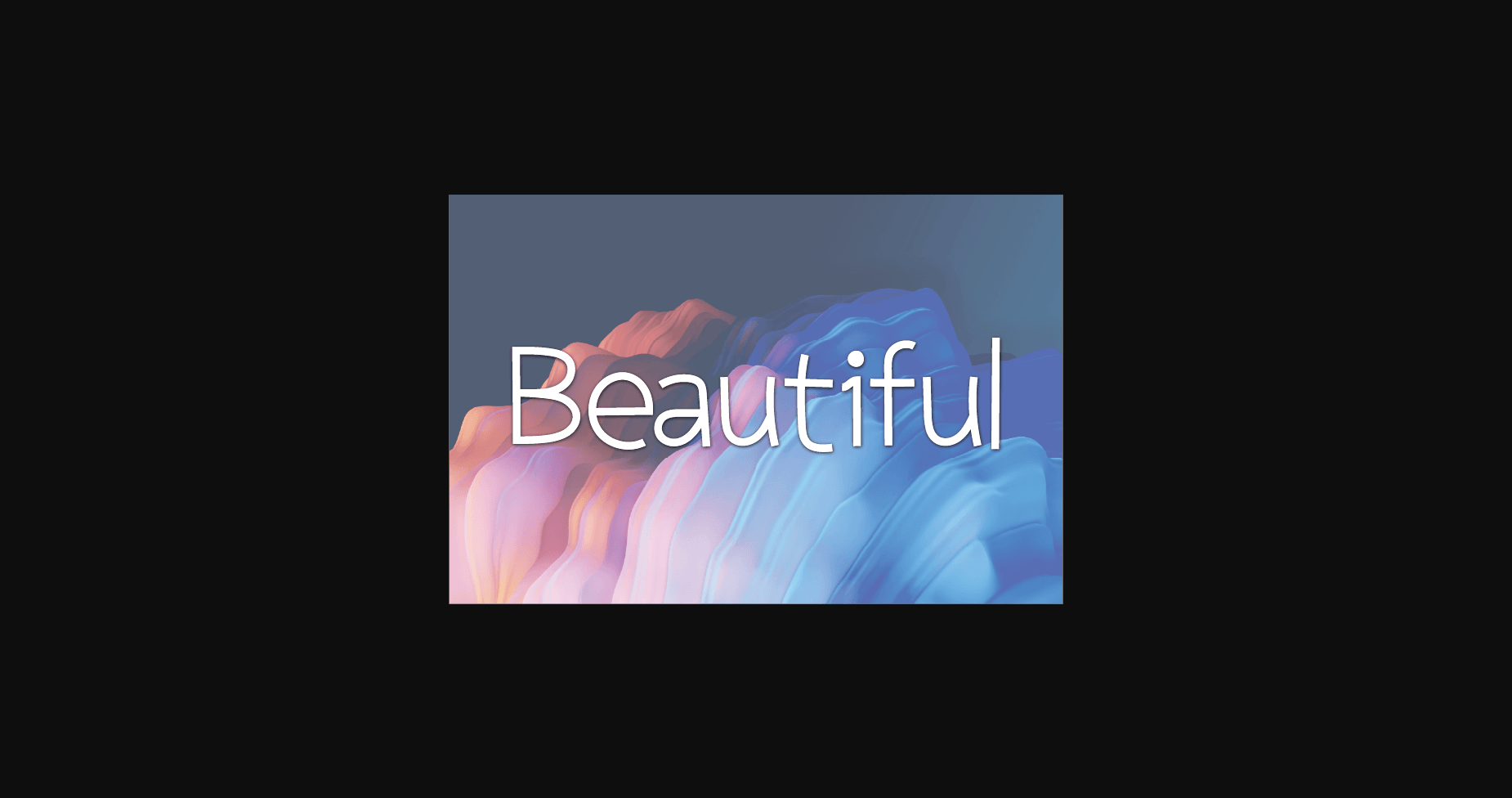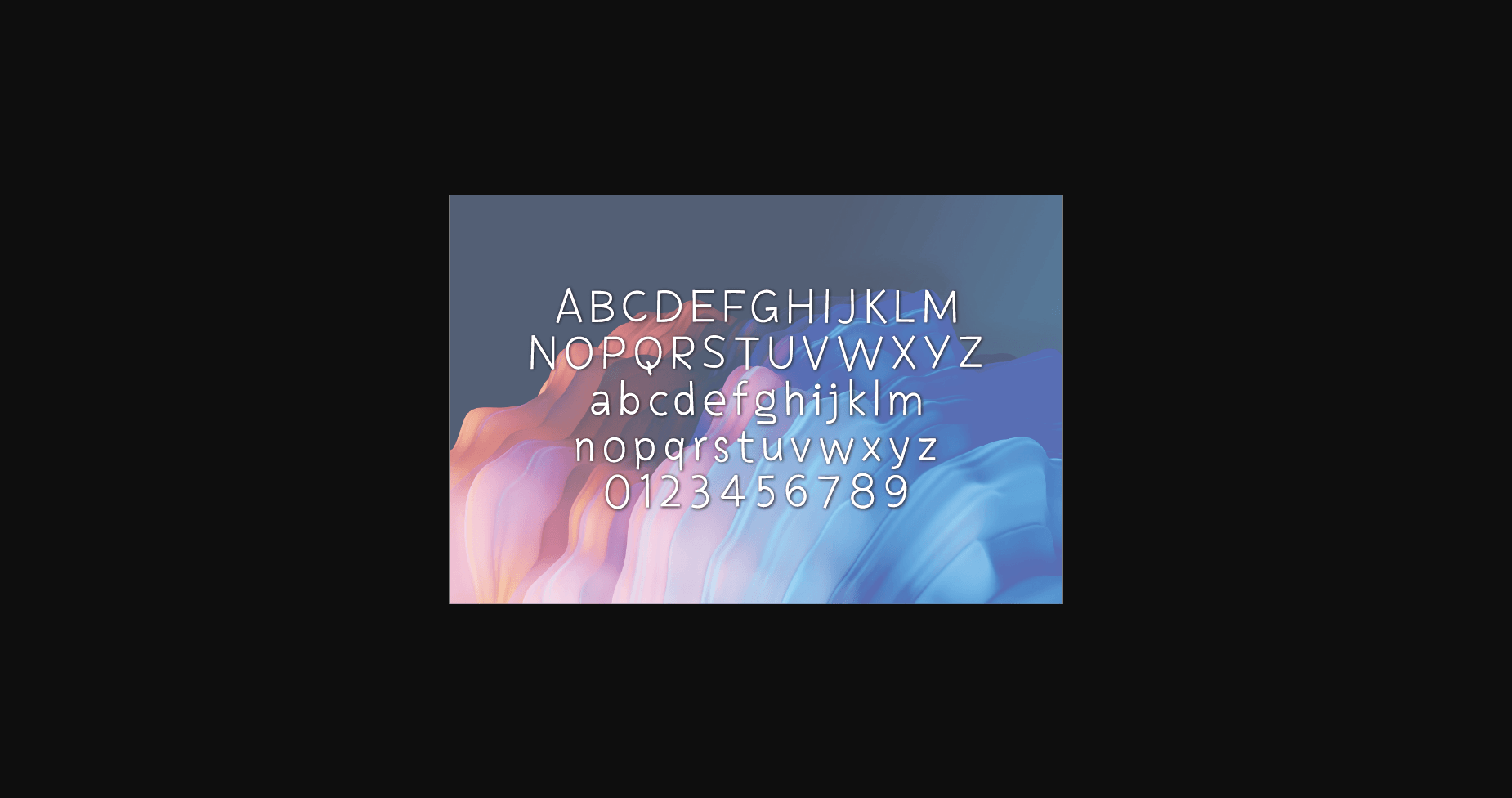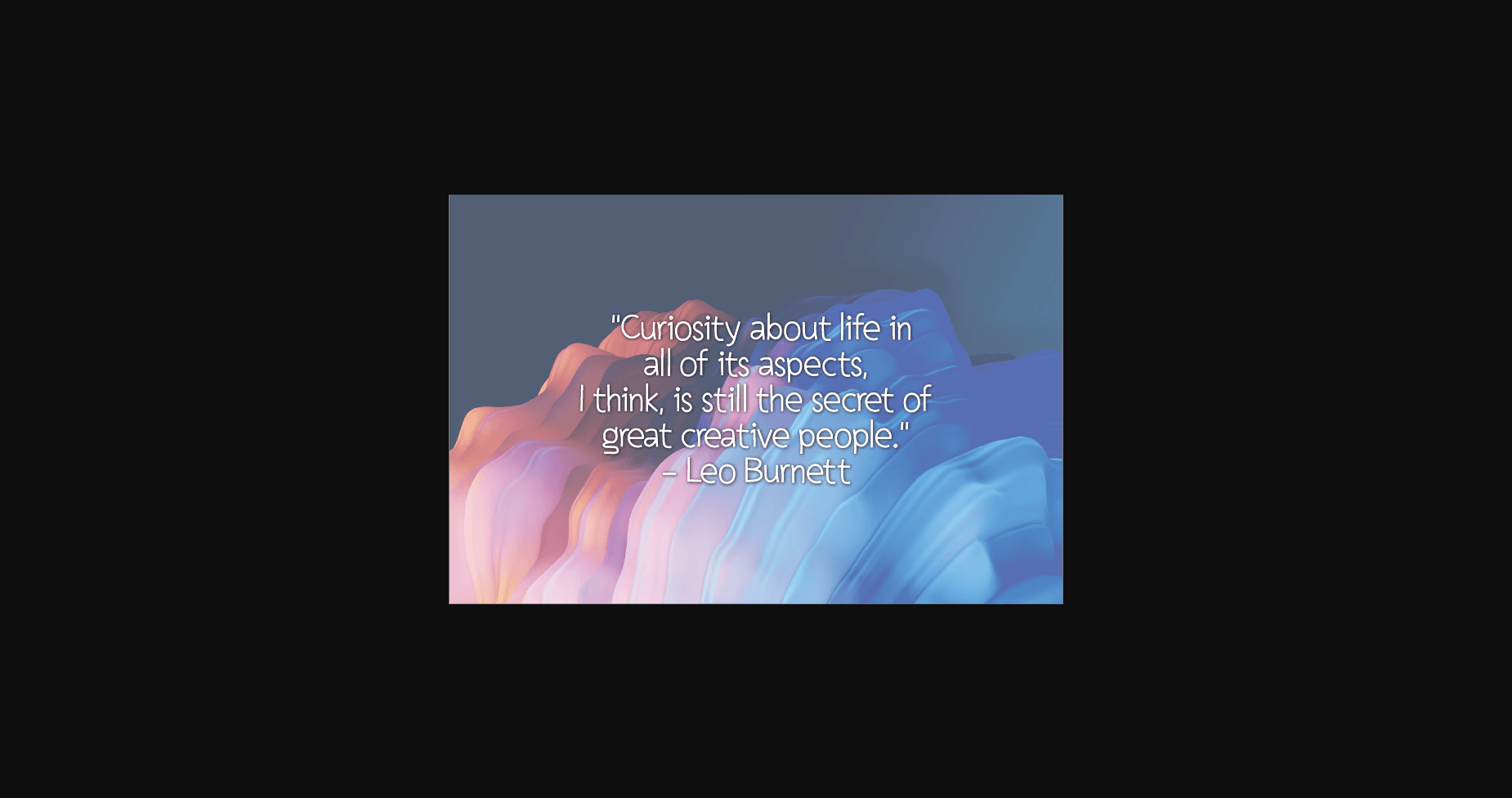
HomeSans Serif FontsBeautiful Font Sans Serif Fonts Beautiful Font FacebookXPinterestWhatsApp 1 of 6 ... Beautiful Font Poster 2... Beautiful Font Poster 3... Beautiful Font Poster 4... Beautiful Font Poster 5... Beautiful Font Poster 6... About Beautiful Font Beautiful is a beautiful sans serif font that will make a wonderful asset to your collection. Add it to your logos, quotes, T-shirts, greeting cards, business cards, and many more, and make them outstanding! DOWNLOAD NOW People also explored Plastikcycle Font Qinlani Font Summer Ground Font Carlene Font Anisha Amandella Font Attack Fight Font Bettrish Font Olympus Font 345 0 TagsBeautiful Font Previous articleMellow FontNext articlePouncing Font LEAVE A REPLY Cancel reply Comment: Please enter your comment! Name:* Please enter your name here Email:* You have entered an incorrect email address! Please enter your email address here Website: Save my name, email, and website in this browser for the next time I comment. Personal Use Free Cute Messy Personal Use Free Read more about this font Strings Personal Use Free Read more about this font The Quick Personal Use Free Read more about this font Waverly Date Personal Use Free Read more about this font BLOG Using Fonts in Digital Marketing: Tips to Strengthen Your Brand Identity In the realm of digital marketing, every visual element plays a crucial role in shaping a brand's identity, and fonts are no exception. The... Transform Your Website: Elevate Your Typography with 7 Best Web Font Generators Where to Buy American Fonts Online in 2024 How to Cut Any Font on Cricut: Convert a Font to SVG (Free)